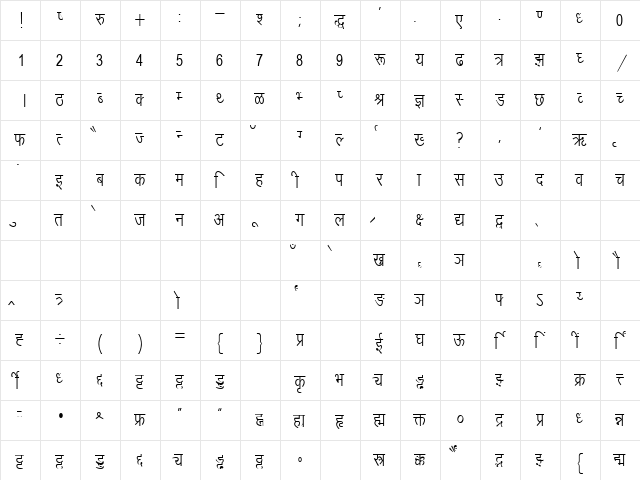
DevLys 010 Condensed Normal
Design Context for DevLys 010 Condensed Typeface
DevLys 010 Condensed takes a measured approach to typography — its balanced proportions and neutral character make it a reliable workhorse for both digital and print work. The condensed width makes it efficient for tight spaces without sacrificing legibility.